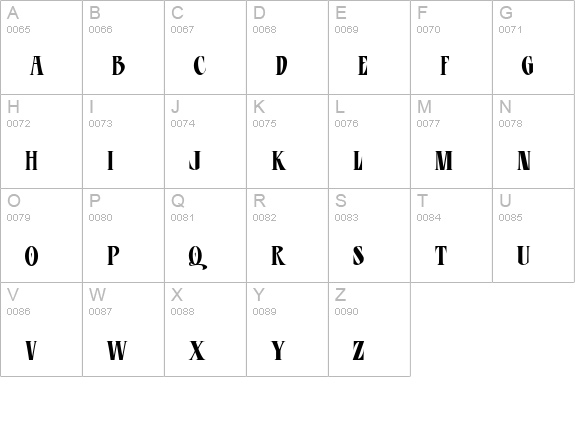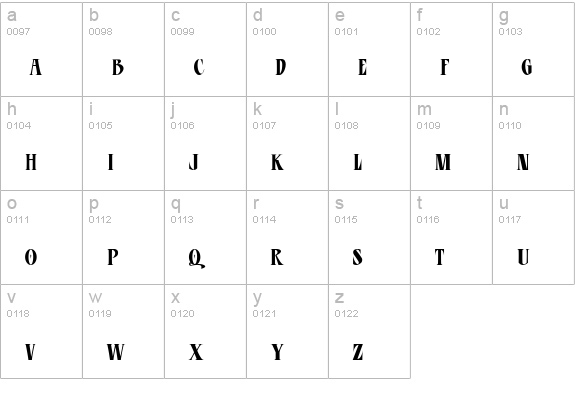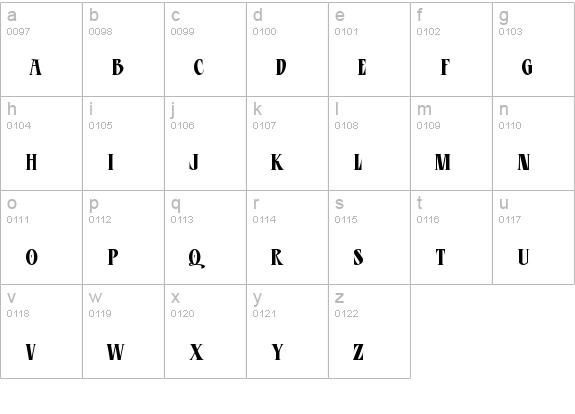
CD Esoteric Plain Font Details
CD Esoteric Plain font is a unique and sophisticated typeface that exudes a sense of mystery and elegance. Its clean lines and geometric shapes give it a modern yet timeless appeal, making it suitable for a wide range of design projects. This font is perfect for creating sleek logos, stylish branding materials, eye-catching posters, and more. What sets CD Esoteric Plain font apart is its versatility and readability. Whether used in large headlines or small body text, this font maintains its clarity and legibility, ensuring that your message is conveyed effectively. The sleek and minimalist design of CD Esoteric Plain font adds a touch of sophistication to any project, making it a must-have for designers looking to elevate their work. Best of all, CD Esoteric Plain font is freely available to download at FontsMarket.com. This means that you can access this stunning font at no cost, allowing you to add a touch of luxury to your designs without breaking the bank. Don't miss out on this opportunity to enhance your projects with the timeless beauty of CD Esoteric Plain font.